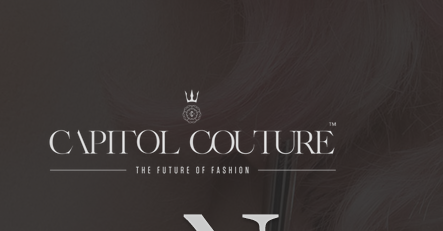
thelordofdarkness Posted August 13, 2013 Share Posted August 13, 2013 Anyone know what this font could be? It's awesome, perfect for a thesis I am doing for university! Both of the fonts, the one that says CAPITAL COUTURE and the one that says FASHION too Thanks! Link to comment Share on other sites More sharing options...
ACTIONpack Posted August 13, 2013 Share Posted August 13, 2013 Font name is Pratt. http://fontsinuse.com/uses/4081/capitol-couture Link to comment Share on other sites More sharing options...
thelordofdarkness Posted August 14, 2013 Author Share Posted August 14, 2013 Oh wow that is an awesome site, thanks so much :) Is the bit where it says FUTURE = BEBAS? or BIG NOODLE TITLING? Link to comment Share on other sites More sharing options...
thelordofdarkness Posted August 14, 2013 Author Share Posted August 14, 2013 Actually, I don't think your right - PRATT doesn't look like that, nothing like it http://www.myfonts.com/search/Pratt Link to comment Share on other sites More sharing options...
Brian M. Veteran Posted August 14, 2013 Veteran Share Posted August 14, 2013 http://www.fontshop.com/fonts/singles/shinntype/pratt_pro_display_regular/?s=c Link to comment Share on other sites More sharing options...
thelordofdarkness Posted August 14, 2013 Author Share Posted August 14, 2013 Ok so I think it's PRATT PRO but it's been customized by cutting off parts of the letters in places right? Link to comment Share on other sites More sharing options...
the better twin Posted August 14, 2013 Share Posted August 14, 2013 Looks completely different to me. There's no curve in the R, the middle ligature of the E has no serif and the O is more oval. Link to comment Share on other sites More sharing options...
ACTIONpack Posted August 14, 2013 Share Posted August 14, 2013 I think Stephen Coles is right about it's Big Caslon but modified. I do it all the time when designing a logo. I use a font but change it a lot. Link to comment Share on other sites More sharing options...